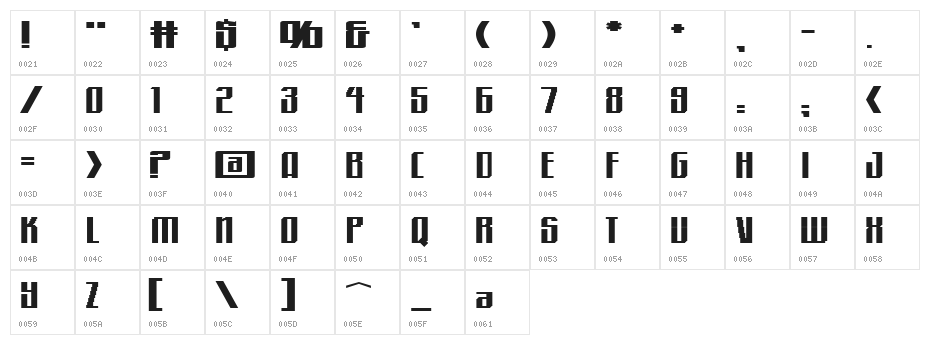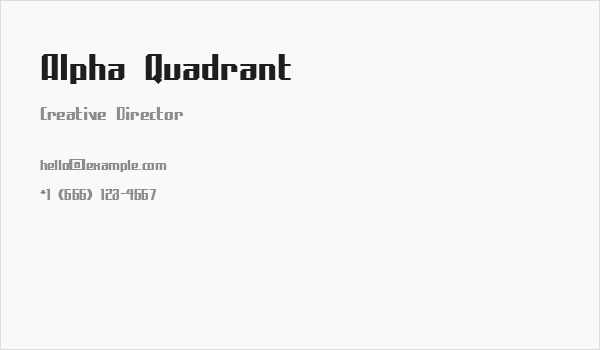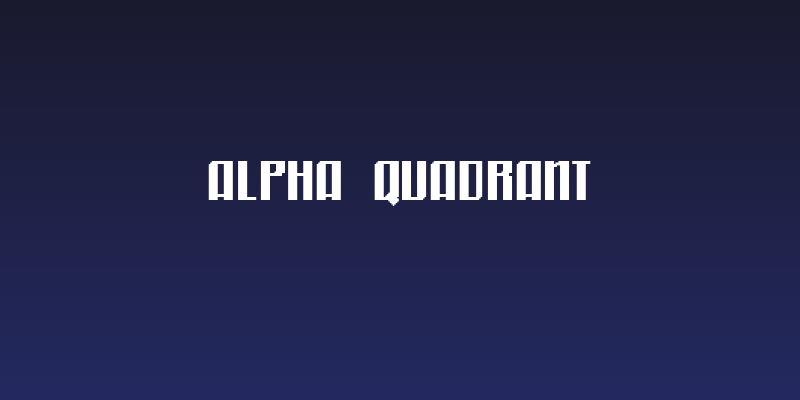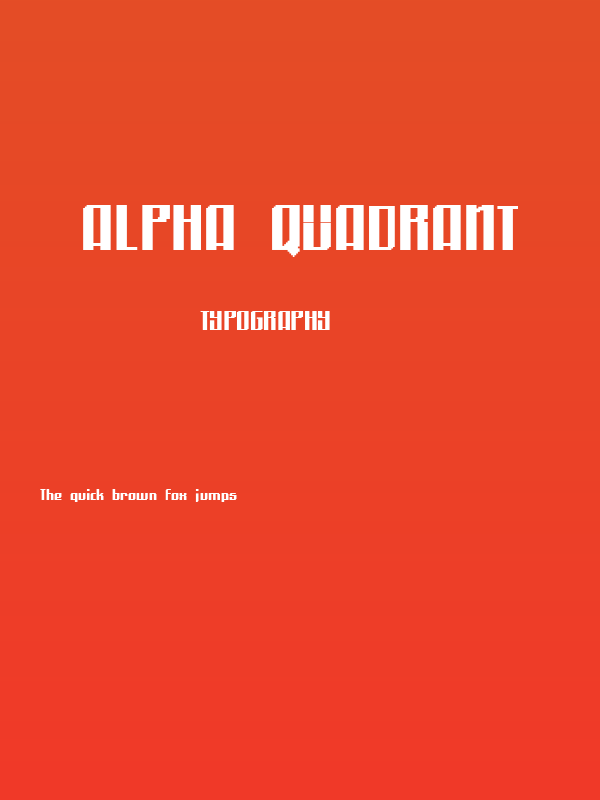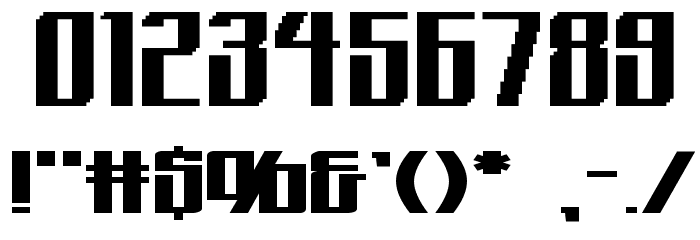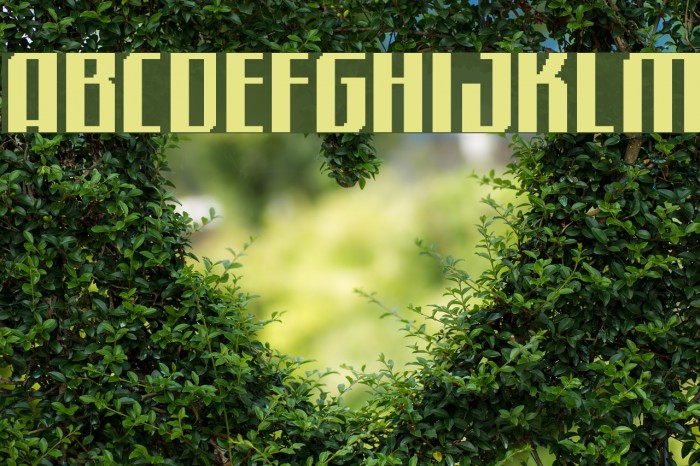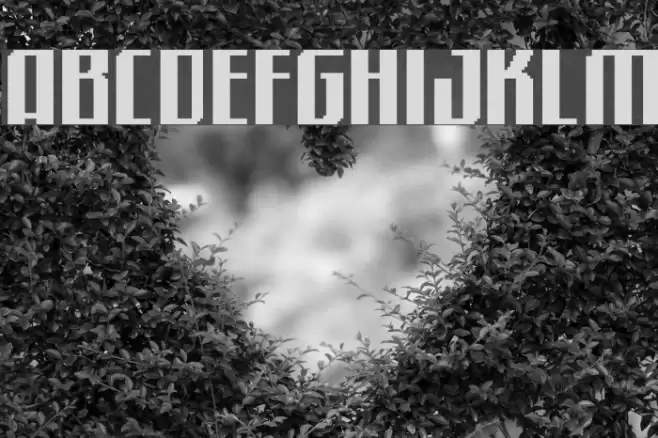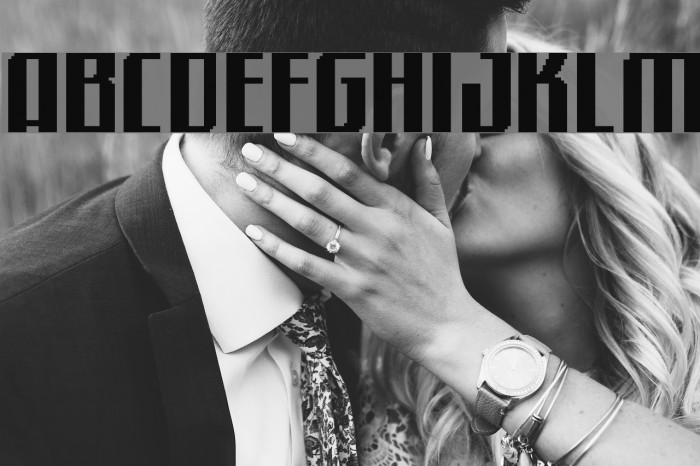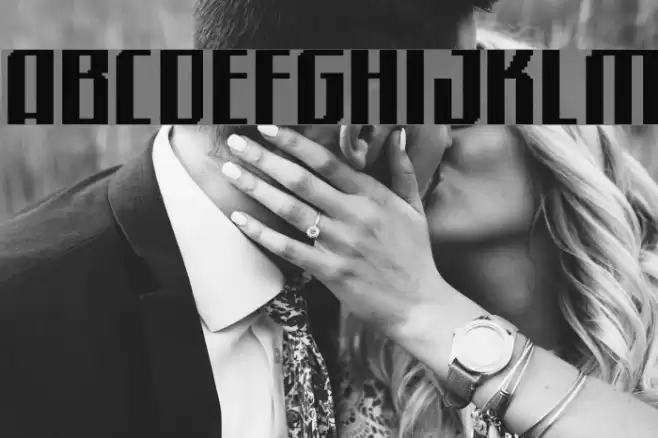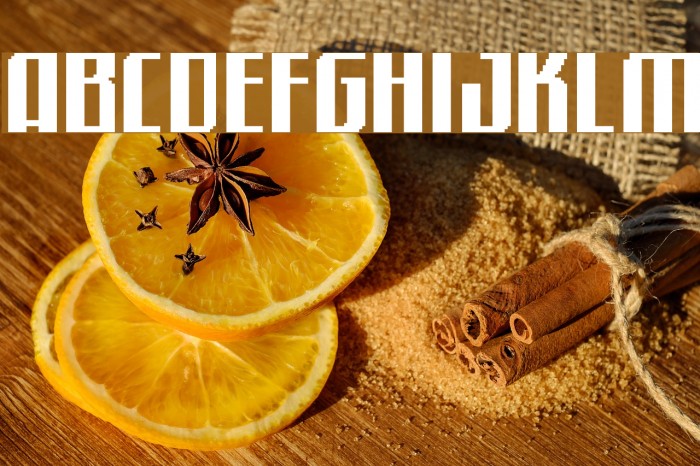
Alpha Quadrant Font
Alpha Quadrant Description
This font features a bold, geometric design with a futuristic and digital aesthetic. The characters are constructed with sharp, angular lines and a blocky appearance, giving it a strong and impactful presence. The uppercase letters are uniform in height, while the lowercase letters maintain a consistent style, enhancing readability. The numerals and special characters follow the same design principles, ensuring a cohesive look across all glyphs. This font's unique style makes it suitable for projects that require a modern and tech-inspired feel.
| Proposed Projects | Ideal for tech branding, video game titles, sci-fi posters, and digital interfaces. |